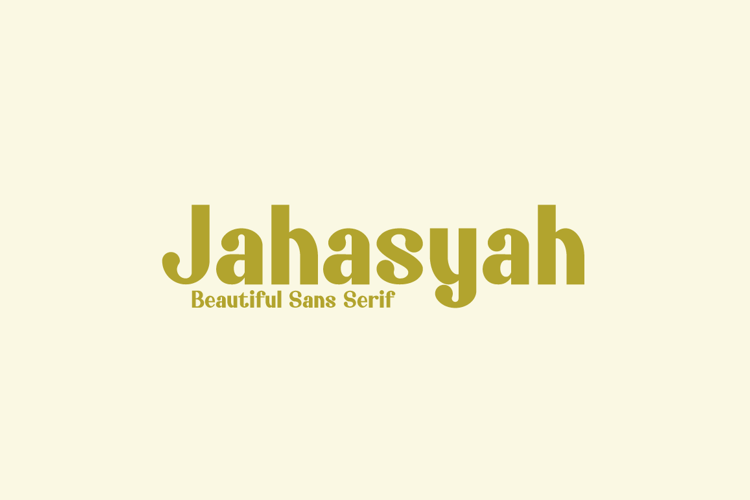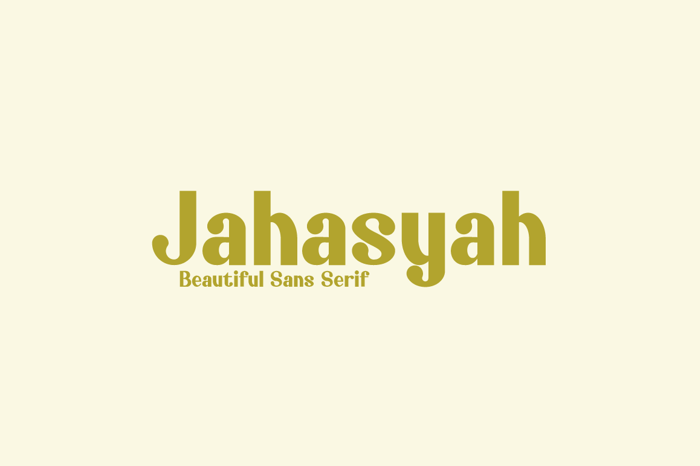
Jahasyah Font
About Jahasyah Font
Jahasyah is a modern and sweet display font. Masterfully designed to become a true favorite, this font has the potential to bring each of your creative ideas to the highest level!